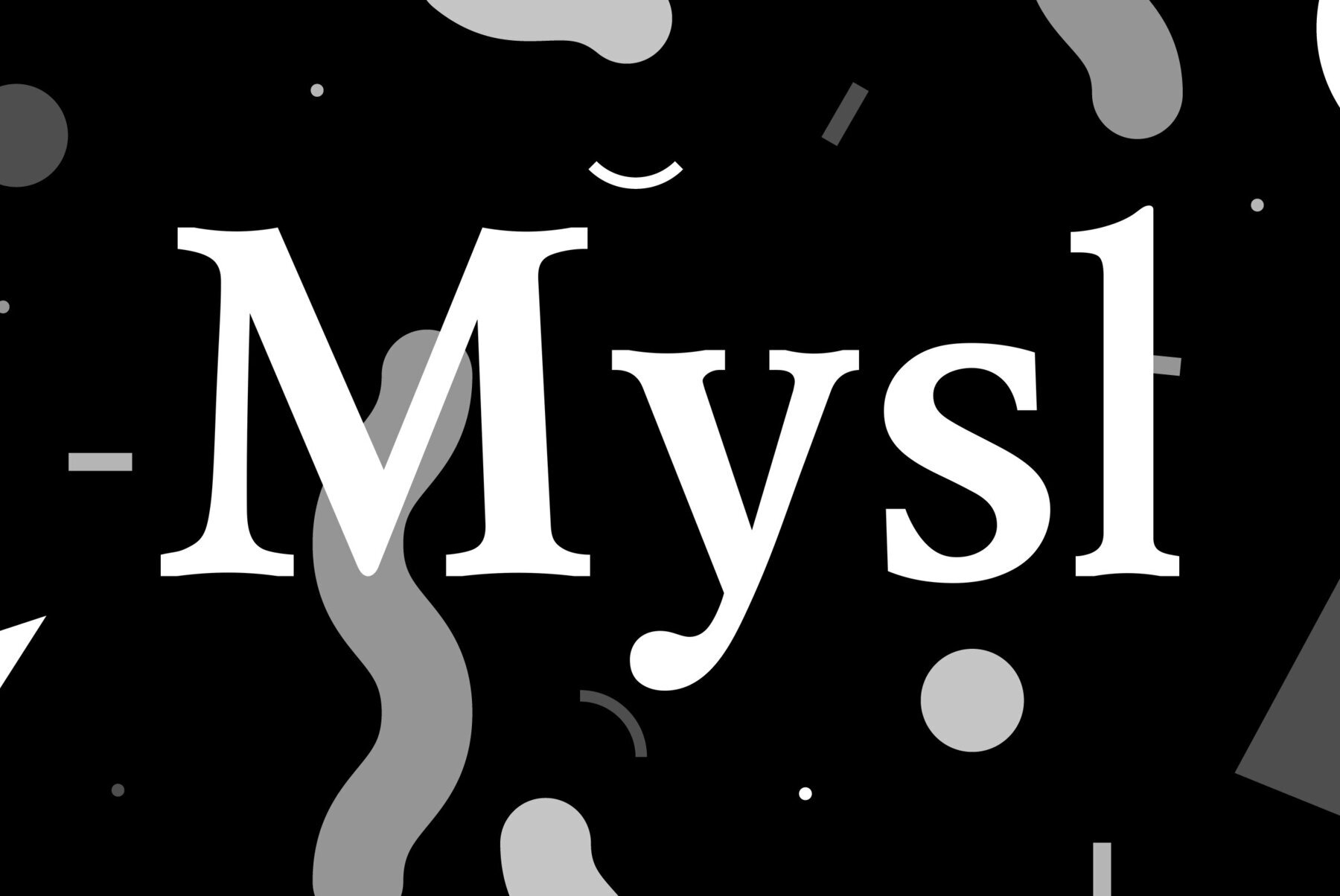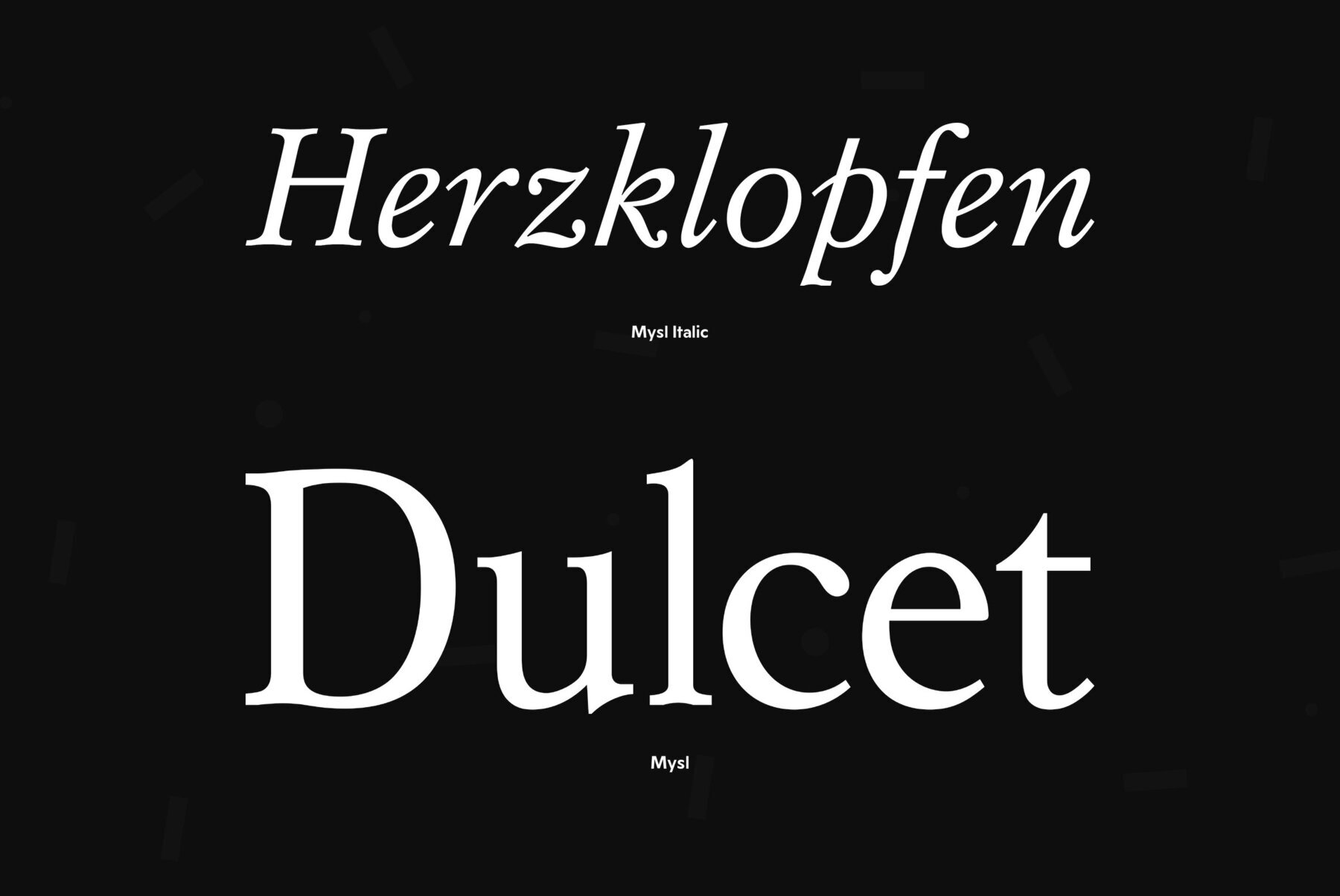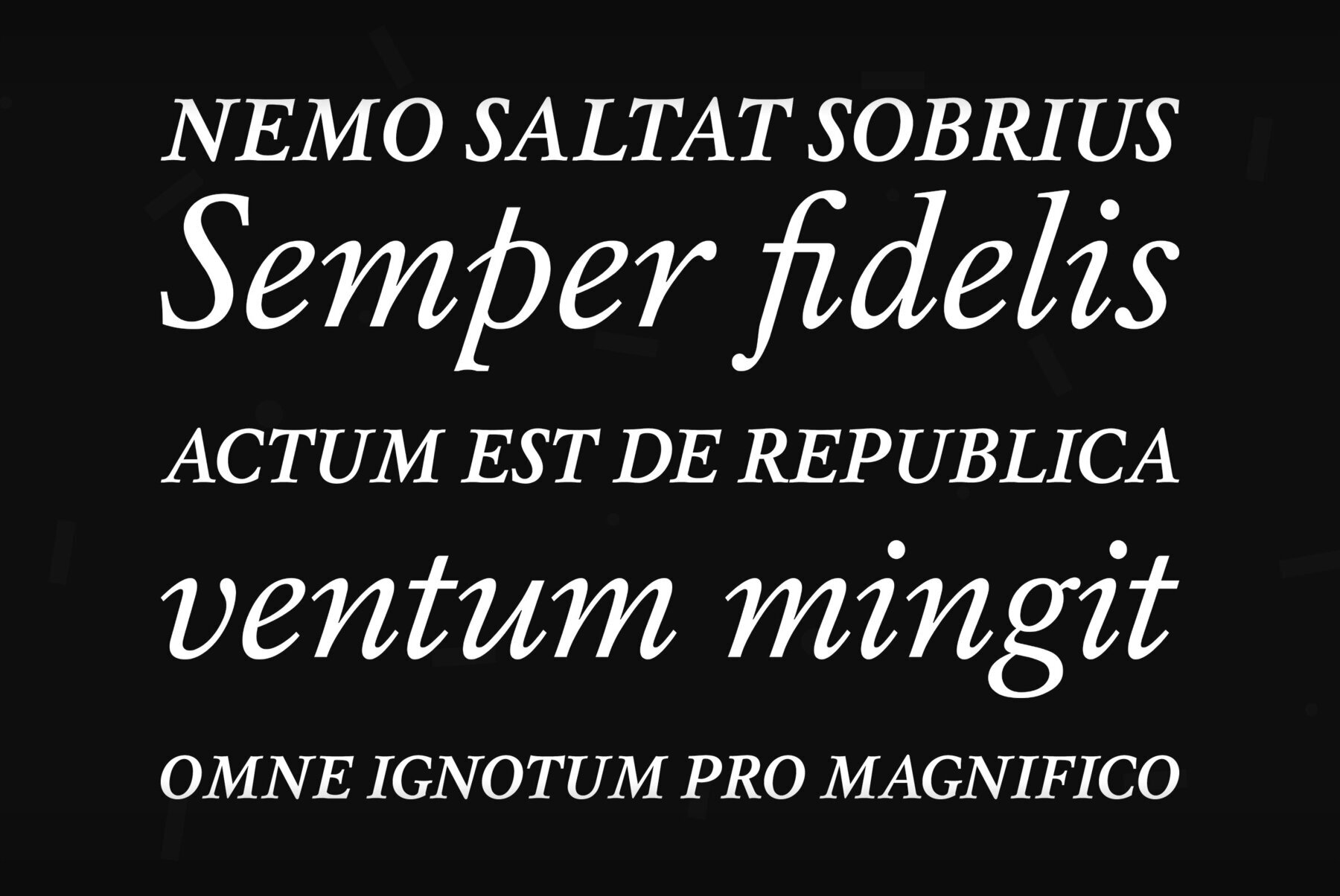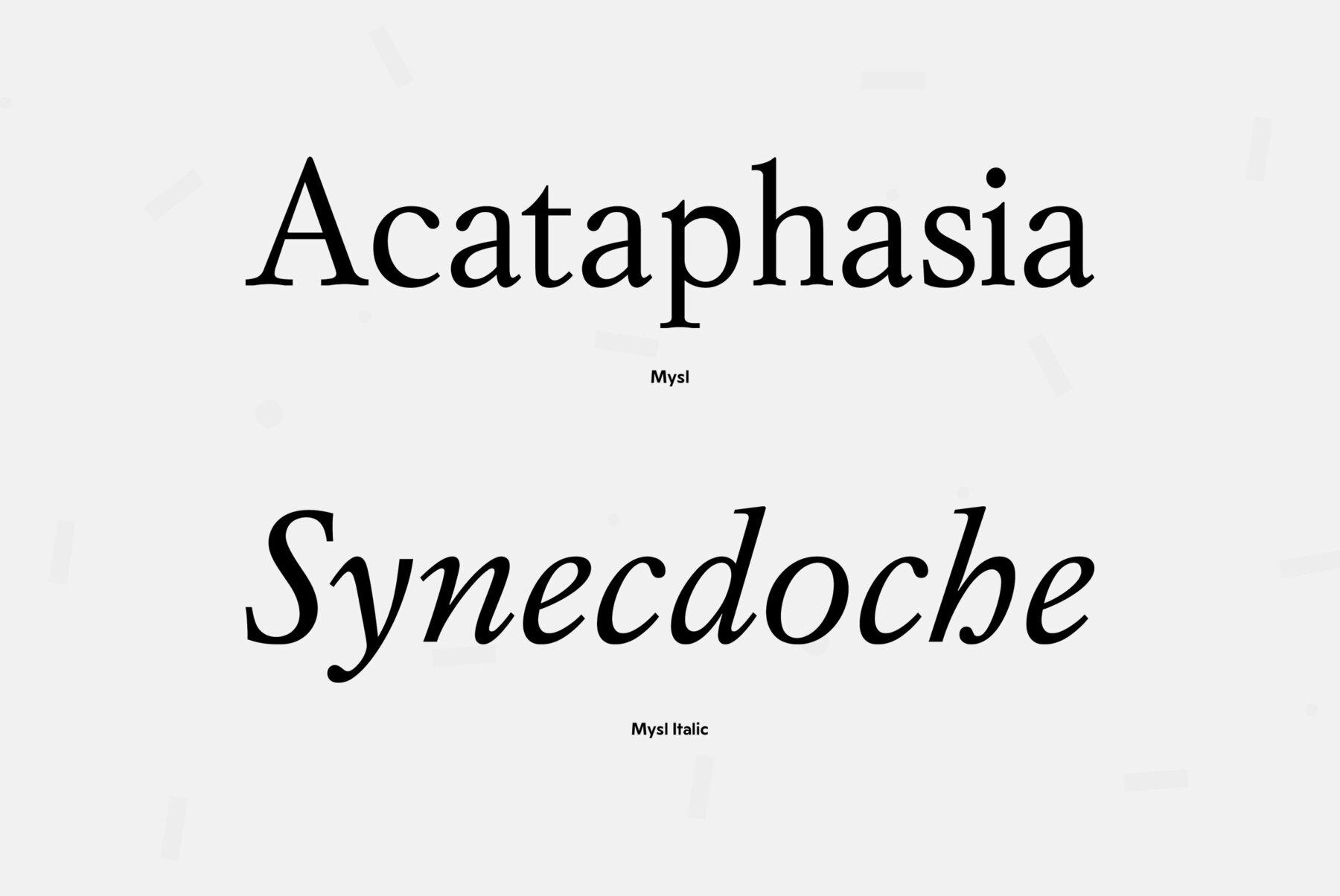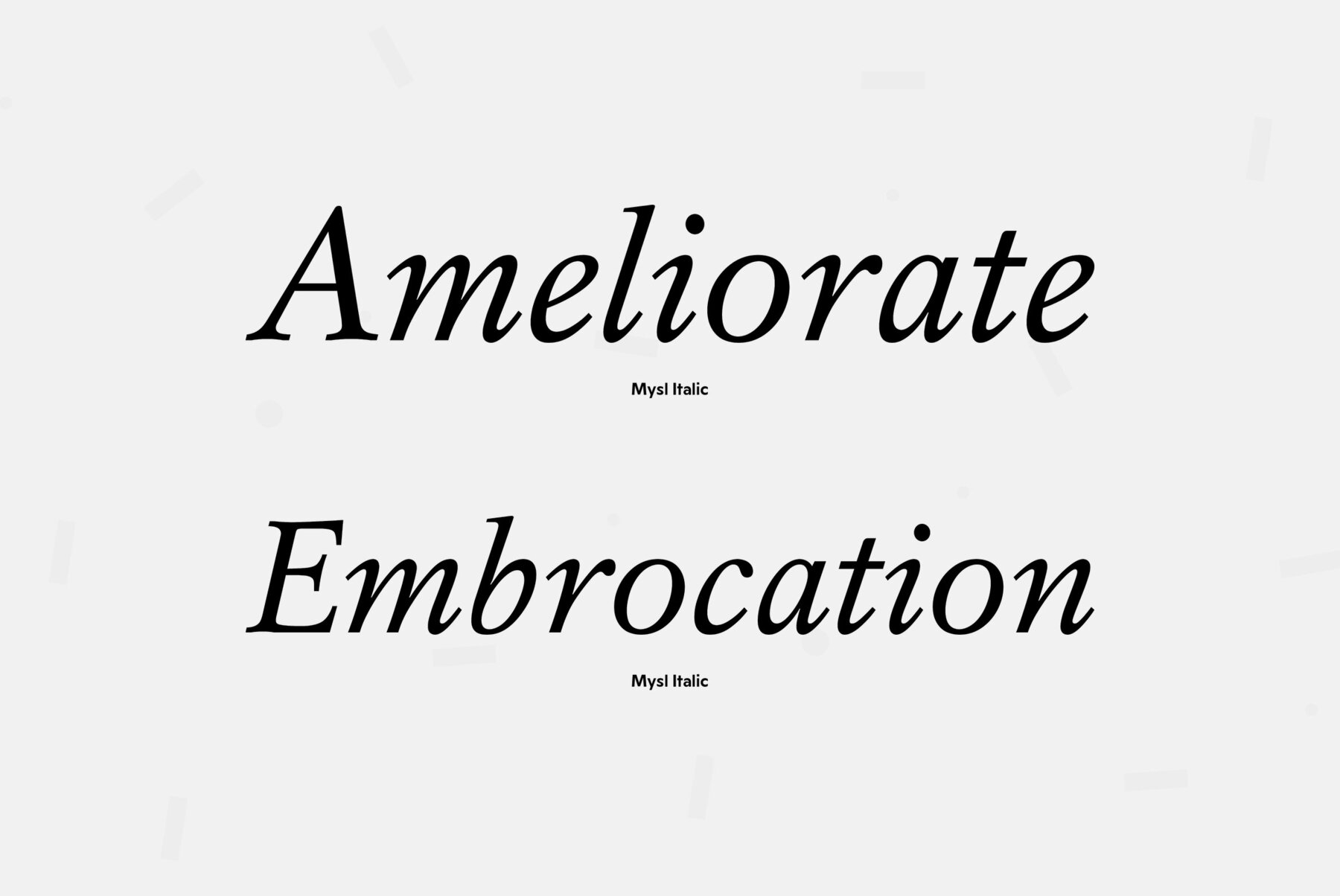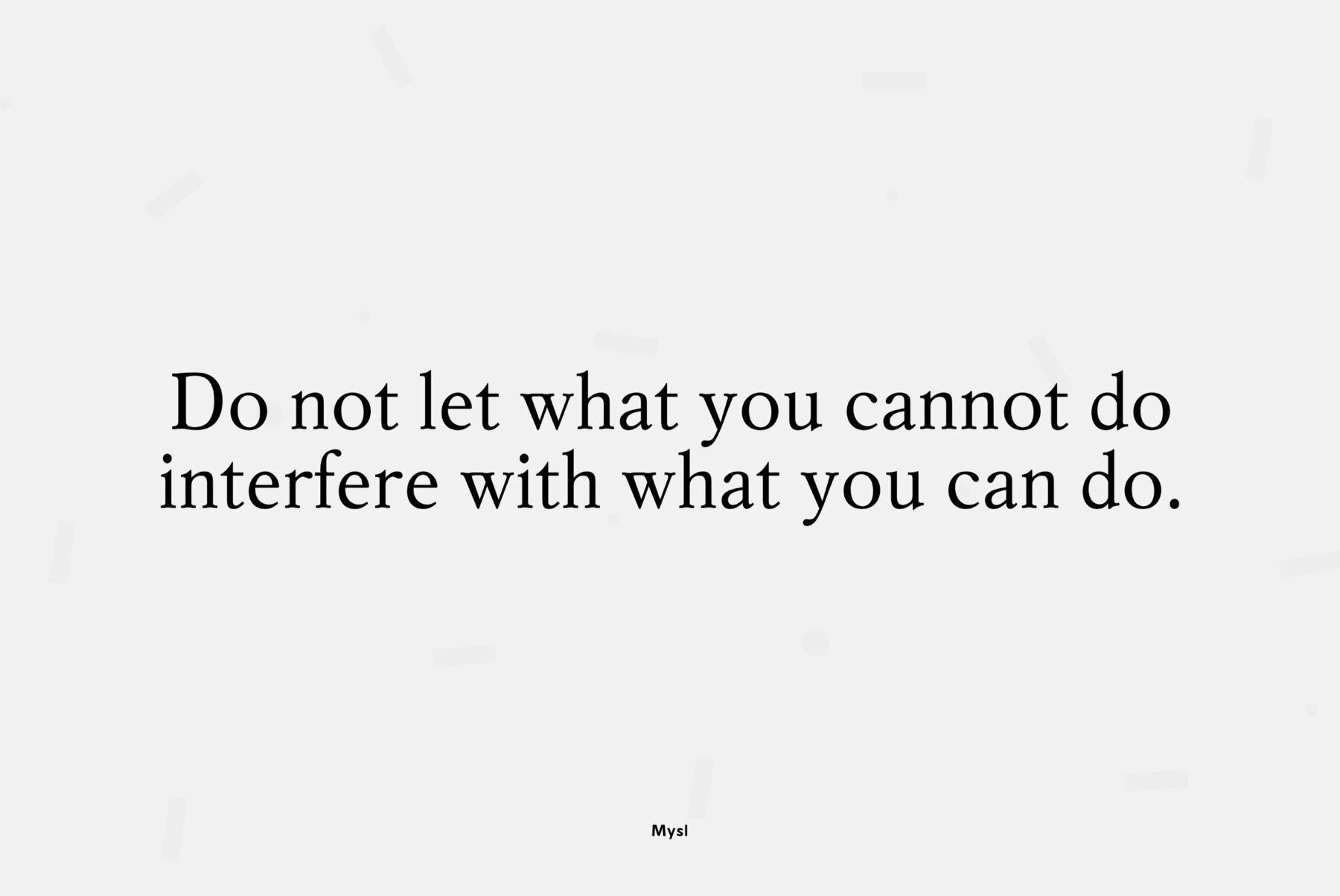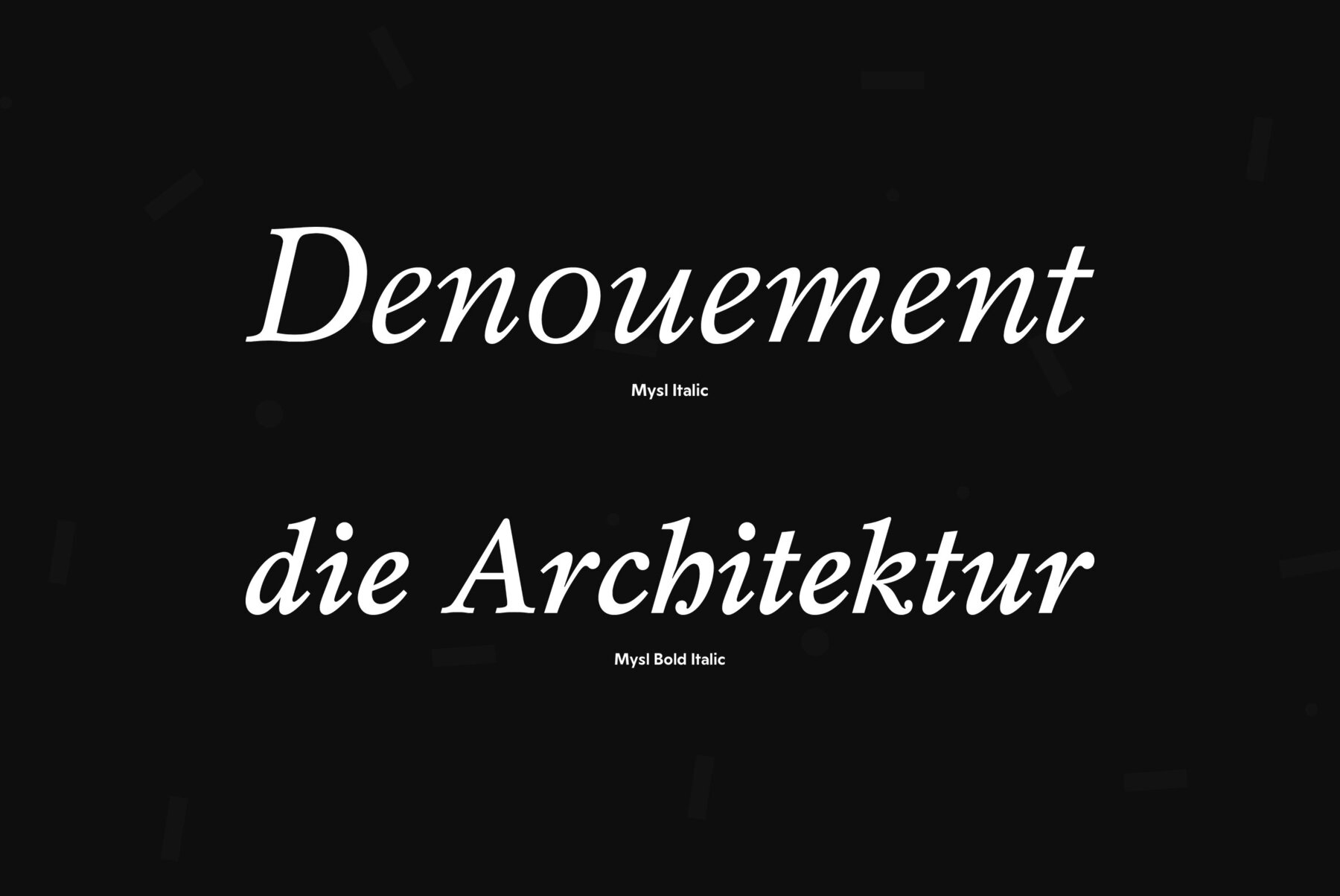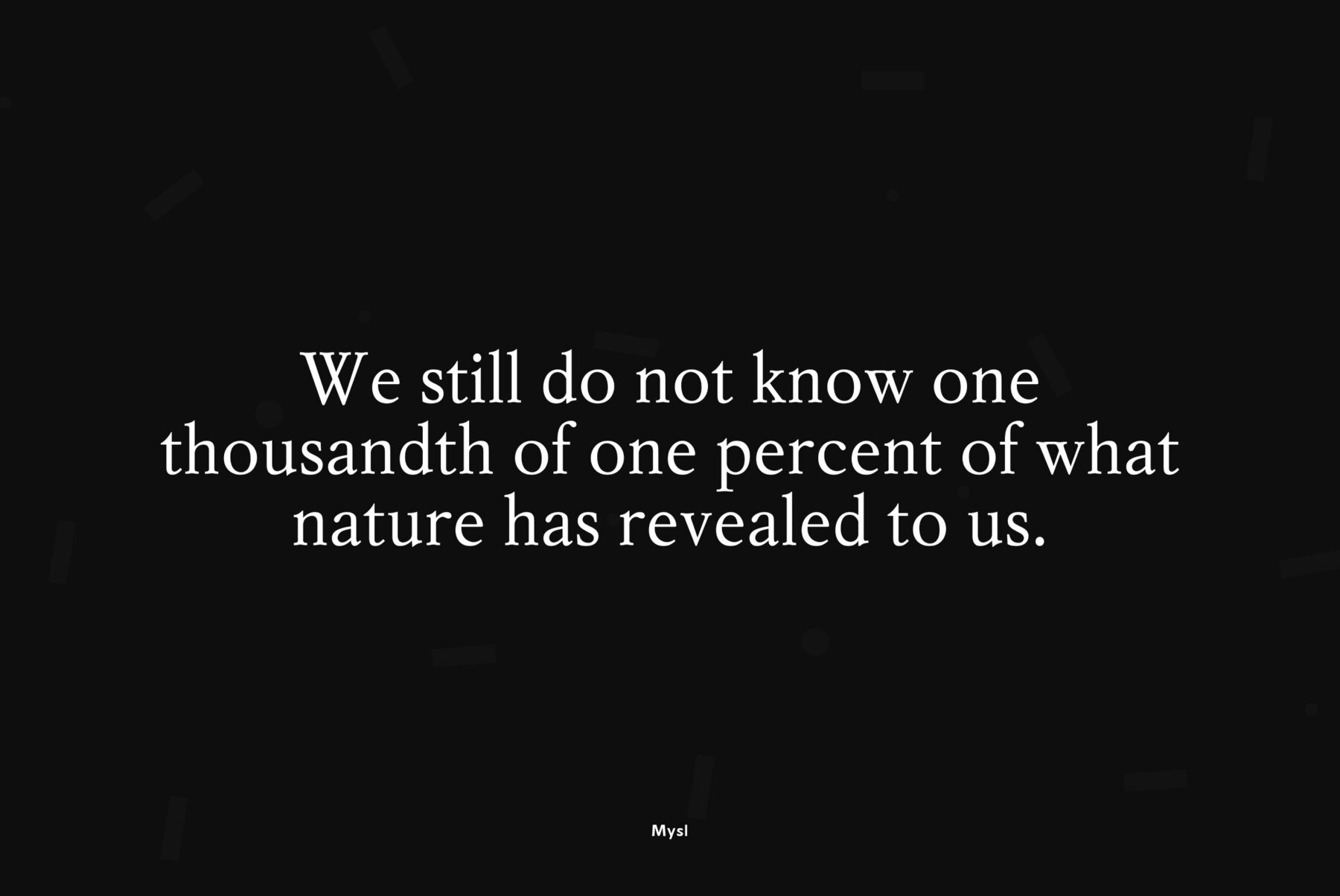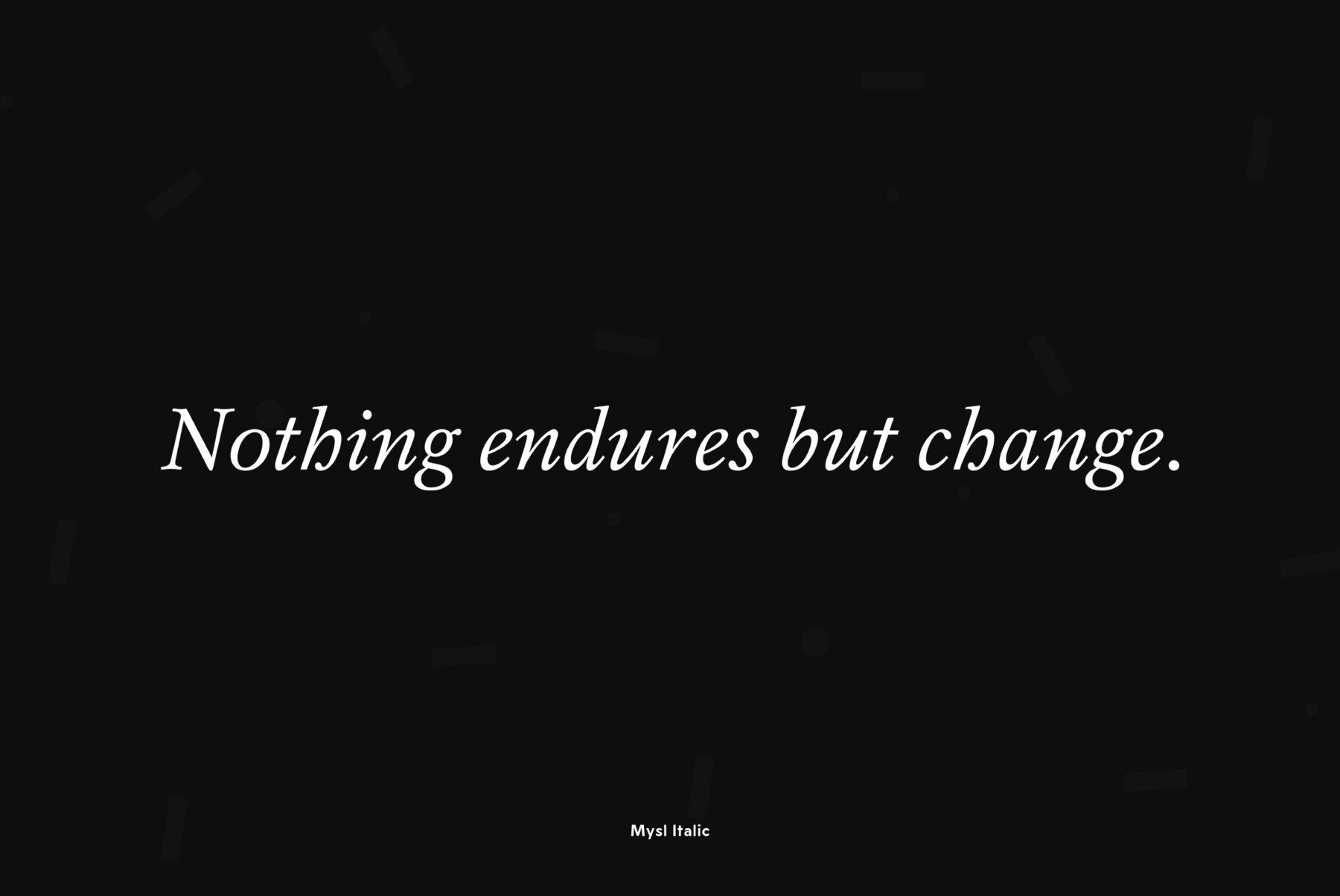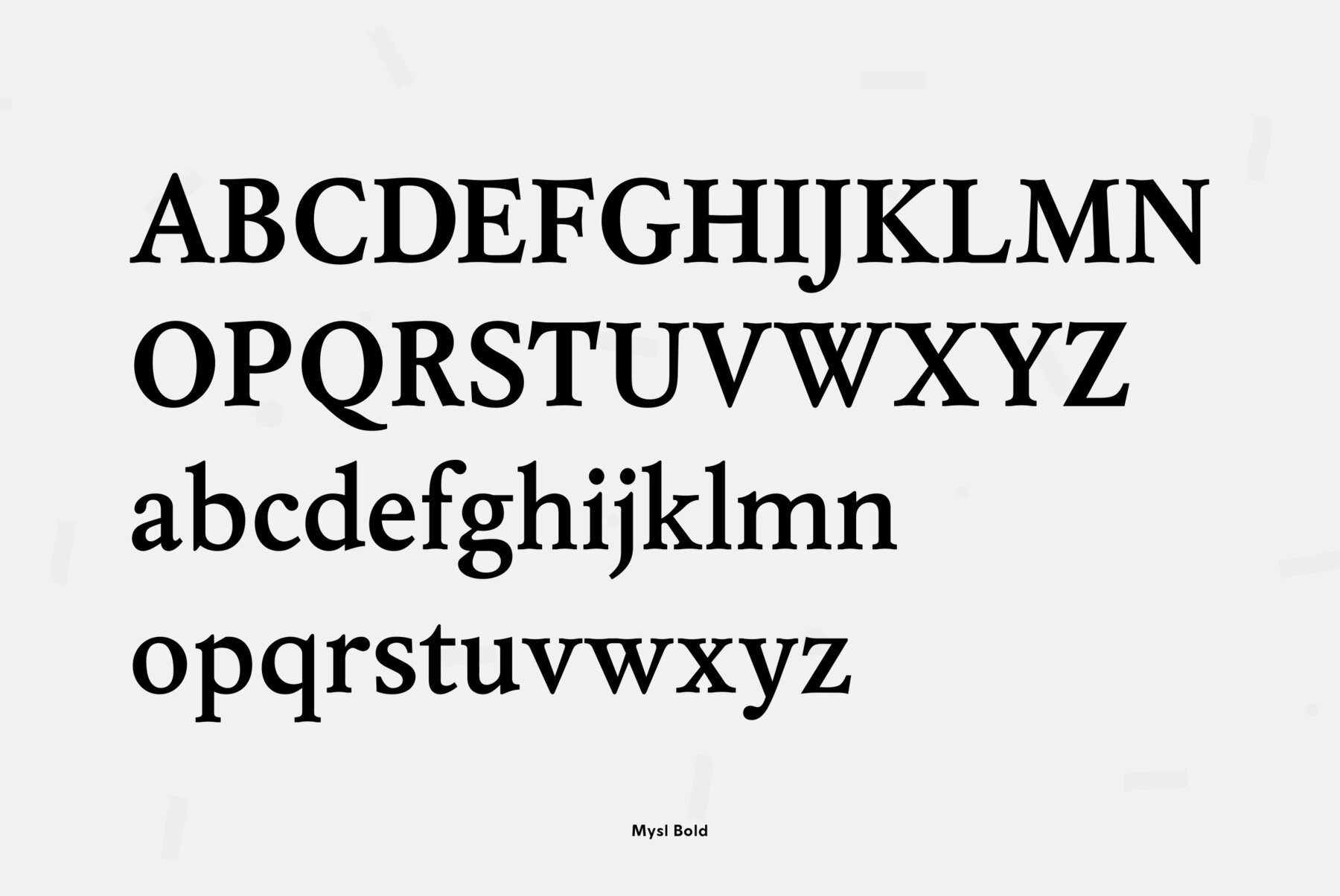
Mysl Font
The typeface was designed at the Polygraphmash type design bureau in 1986 by Isay Slutsker, Svetlana Yermolaeva, Emma Zakharova. Based on Polytizdatkaya type family, 1966, by Vera Chiminova, inspired by the typefaces of the French mid-16th century punchcutter Claude Garamond. The family was initially developed for Mysl Publishers, Moscow. For use in text matter.